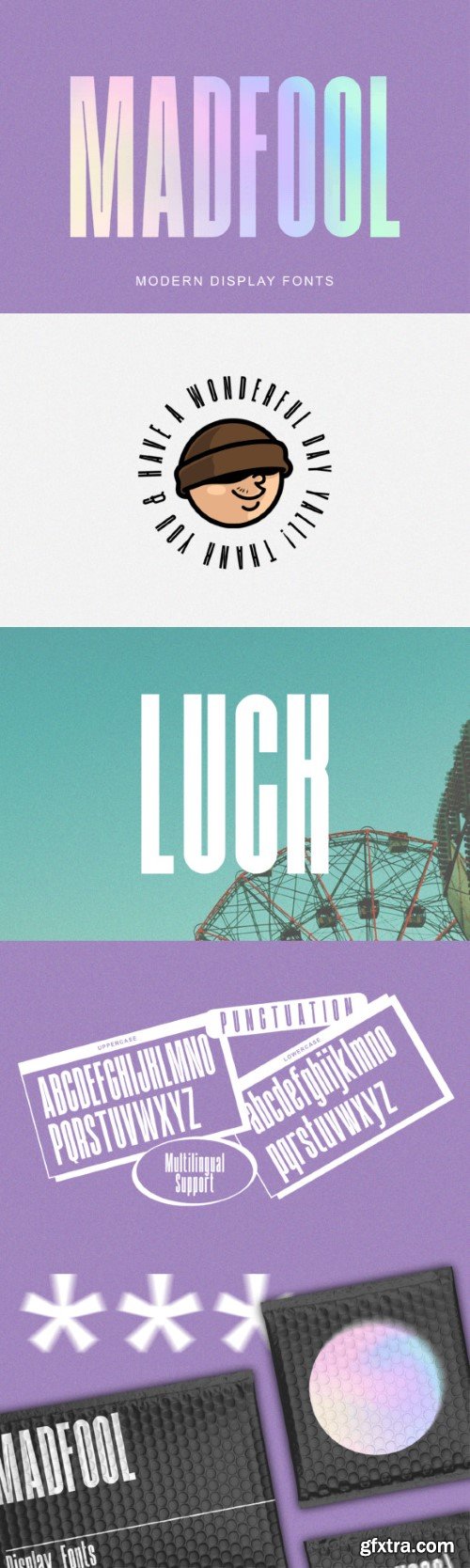
狂人字体
If you are looking for letters with attitude, Madfool is the perfect fit. It’s a memorable, strong and elegant typeface. Madfool is a modern clean sans serif display font. This font is ideal for logo design, social media, business cards, invitations, movie or book titles, posters, web design and so much more.